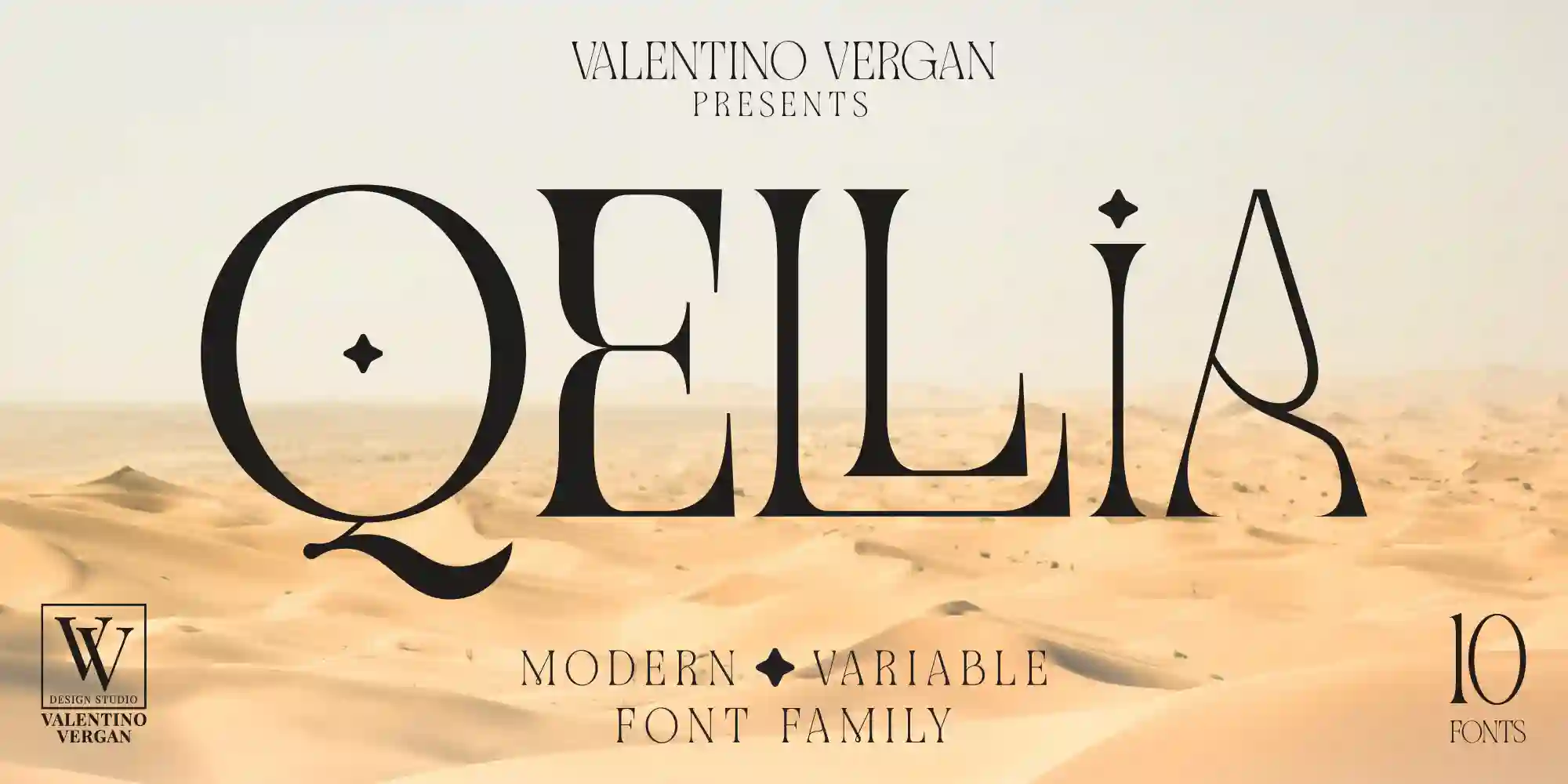
Qellia Font is perfect for exotic spa retreat branding, mystical wellness center communications, ethereal beauty product packaging, spiritual healing practice materials, meditation studio signage, holistic therapy publications, enchanted boutique hotels, and transformative wellness experiences. This mystical typeface brings ethereal elegance and spiritual sophistication to any project requiring otherworldly, serene typography with authentic wellness appeal and transcendent beauty.
What makes Qellia Font exciting is its perfect embodiment of spiritual transcendence and mystical beauty that captures the ethereal essence of inner peace and the transformative power of spiritual wellness practices that connect mind, body, and soul. The font features graceful letterforms with flowing curves and mystical proportions that mirror the gentle movement of meditation and the serene beauty of spiritual awakening while maintaining excellent readability for wellness and spiritual applications. Its transcendent character and mystical sophistication make it ideal for wellness brands, spiritual practices, and transformative experiences seeking to convey inner peace and spiritual authenticity. The typeface's mystical appeal ensures instant recognition of wellness quality and spiritual credibility.
The Qellia Font family includes Light, Regular, Medium, Bold, and Ethereal variants, each maintaining the signature mystical elegance while offering different expressions of spiritual beauty and transcendent sophistication. The family features spiritual symbols, wellness elements, and mystical decorations that enhance its versatility for wellness branding and spiritual practice projects. These variants provide comprehensive tools for creating authentic mystical typography with genuine spiritual character and transcendent appeal.
Whether you're designing for wellness centers, spiritual practices, or transformative retreat experiences, Qellia Font Free Download delivers the mystical authenticity that defines genuine spiritual typography. Its combination of ethereal elegance and transcendent beauty makes it perfect for communicating inner peace, spiritual wellness, and transformative healing with authentic Qellia Font Free Download serenity and unforgettable mystical presence.